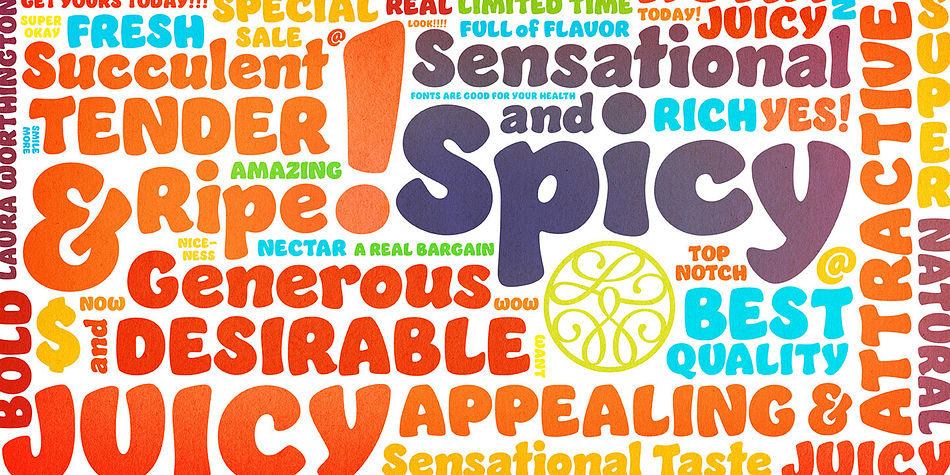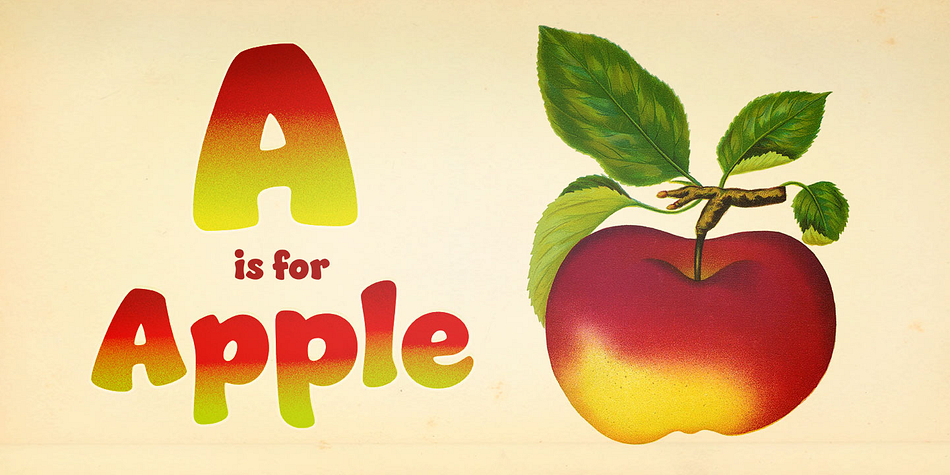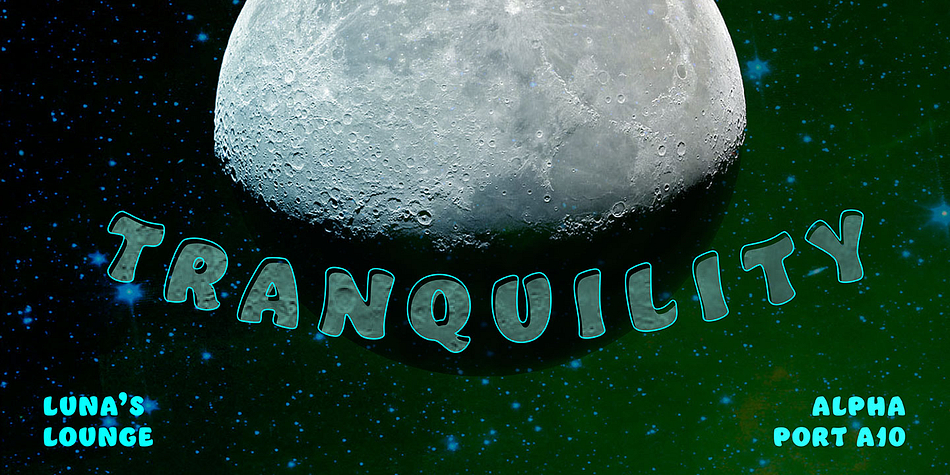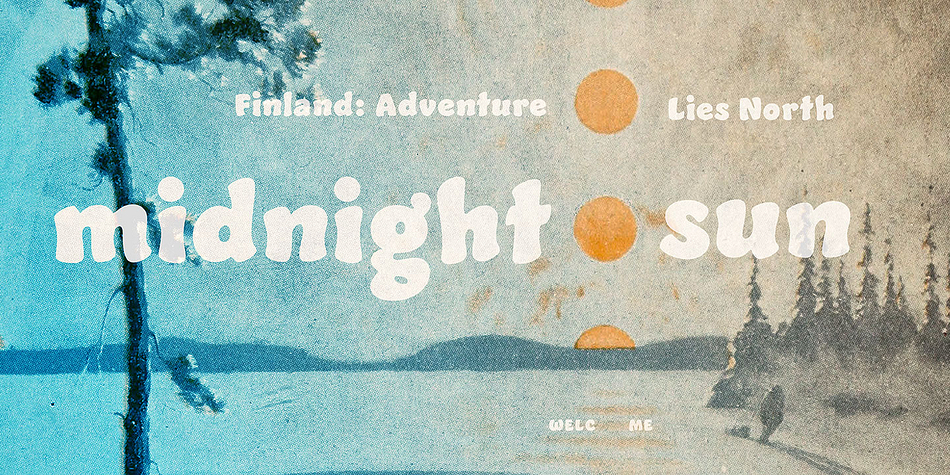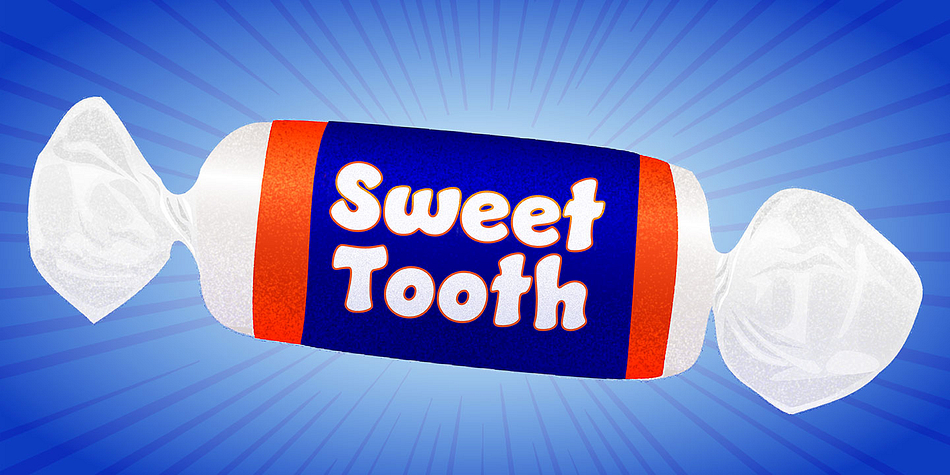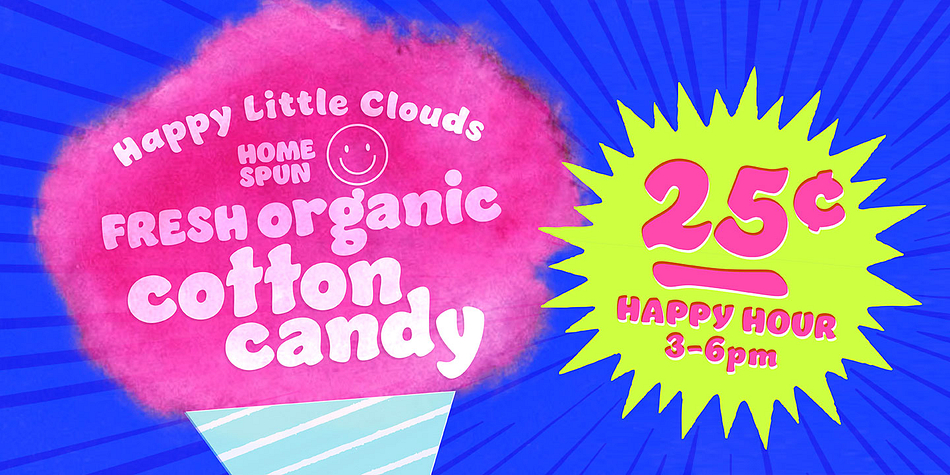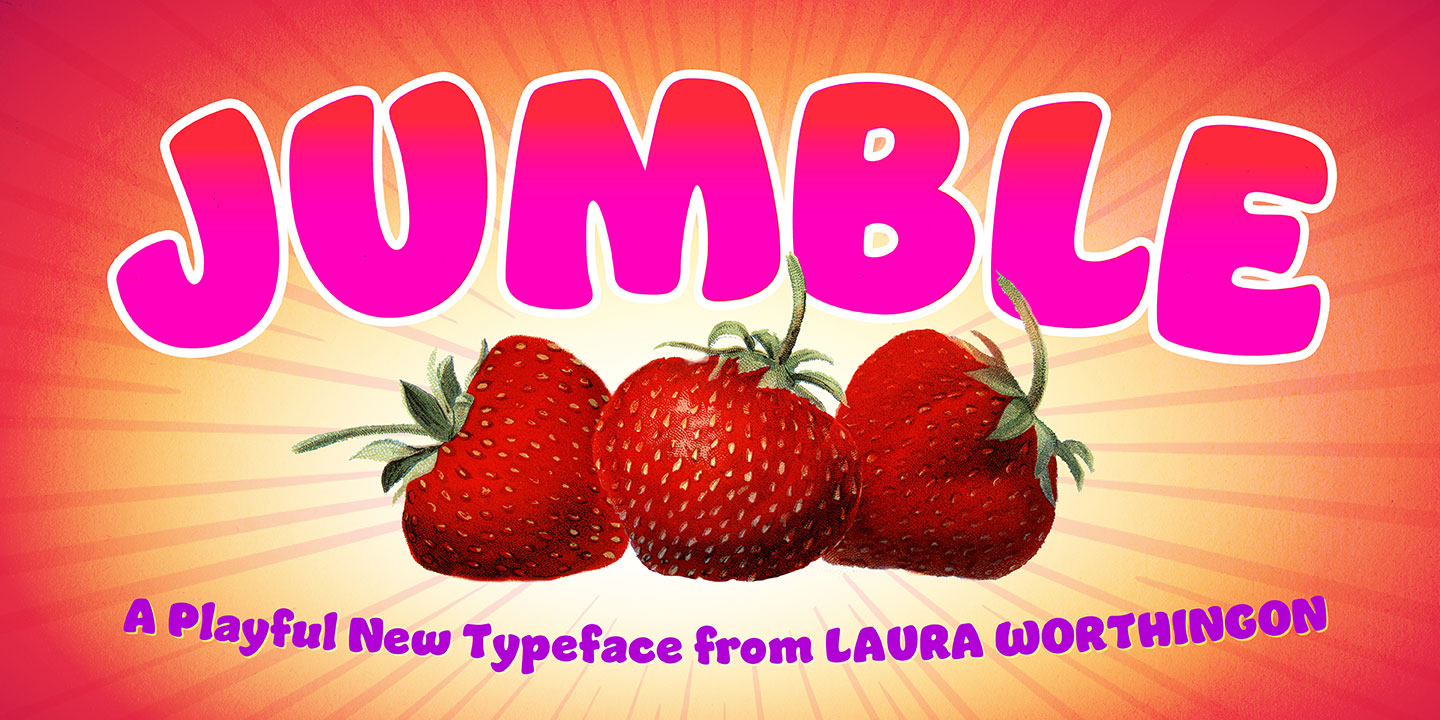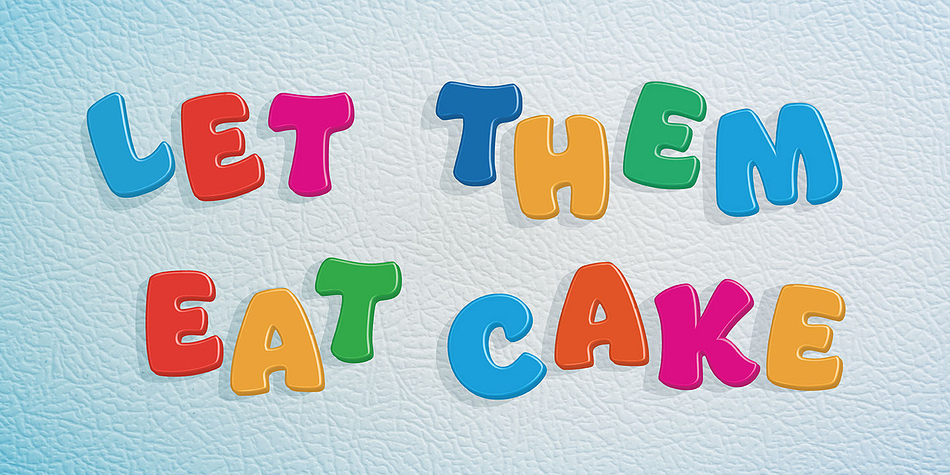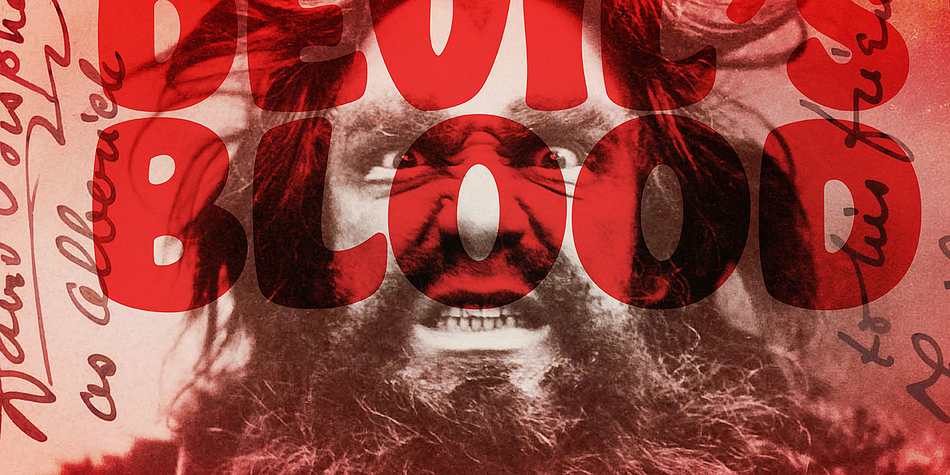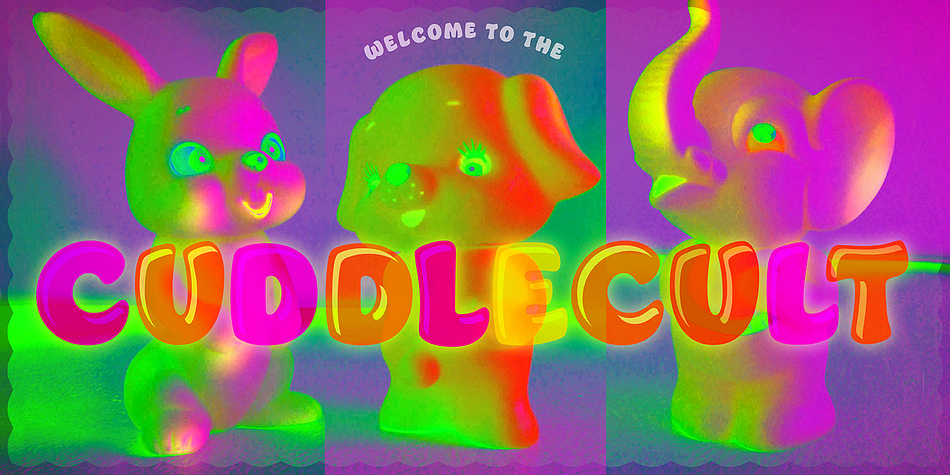
Designed by Laura Worthington, Jumble is a comic, kids and brush display font published by Laura Worthington.
A font this friendly, welcoming, and easy-to-read is a treat for the eyes. Jumble draws you in with its thick, curvy strokes, jaunty counters, and a whimsical variety of counterforms – no two are alike, even within a single m or w.
Need even more variety? Jumble includes alternates for every uppercase and lowercase letter, plus a handful of ligatures.
Jumble conveys humor and warmth without being silly: its lack of straight lines and sharp edges makes it perfect for evoking oh-so-palatable foods like puffs or pies, or child-friendly toys and games.